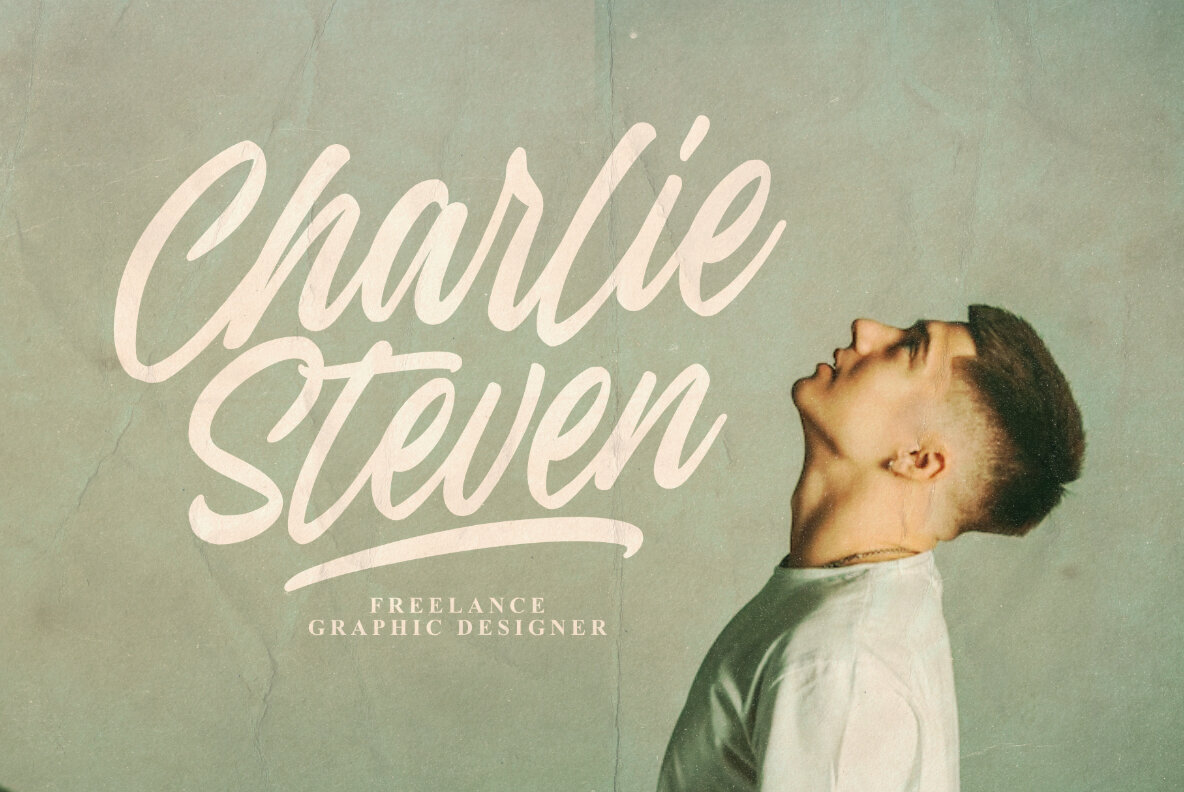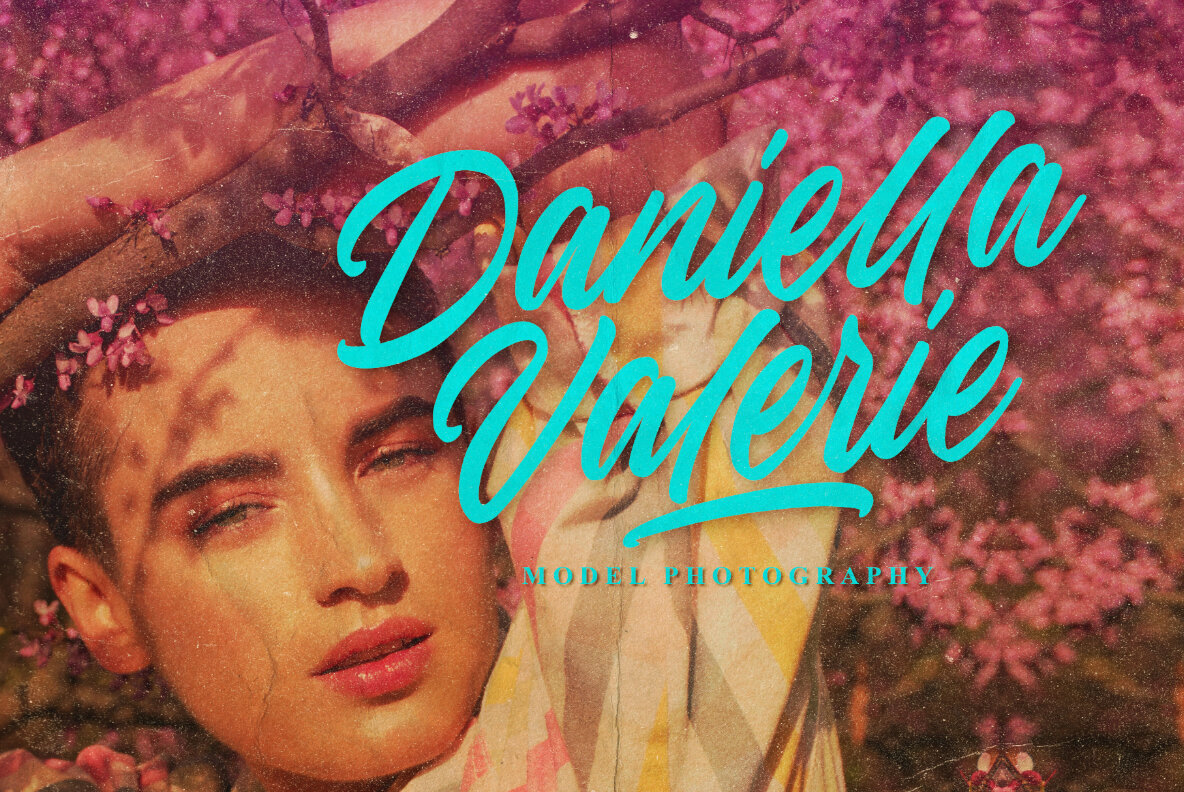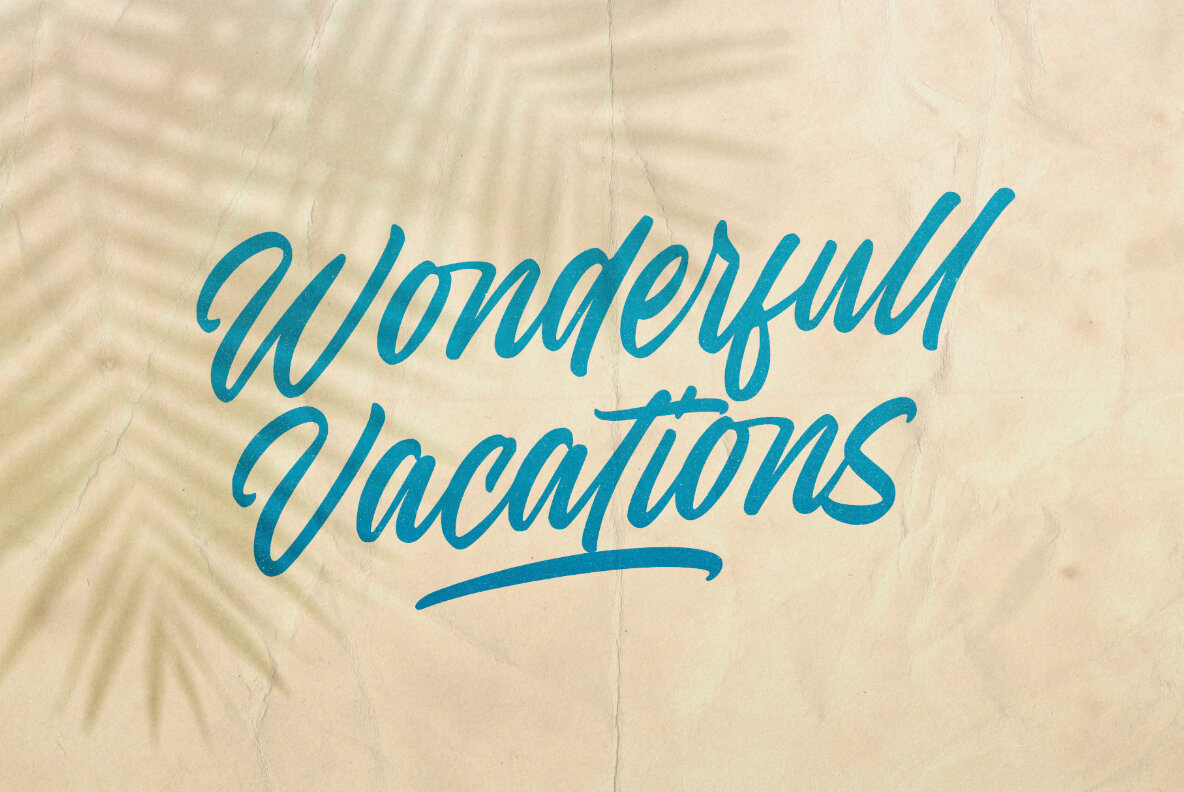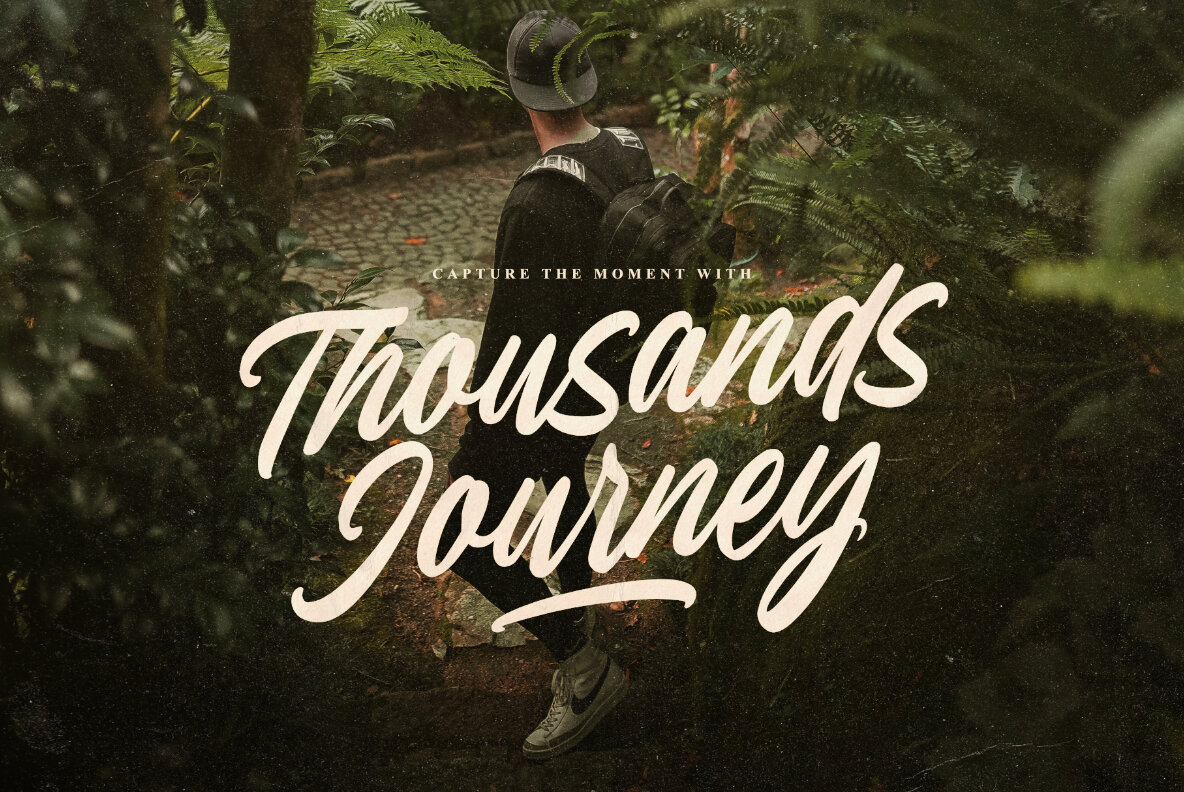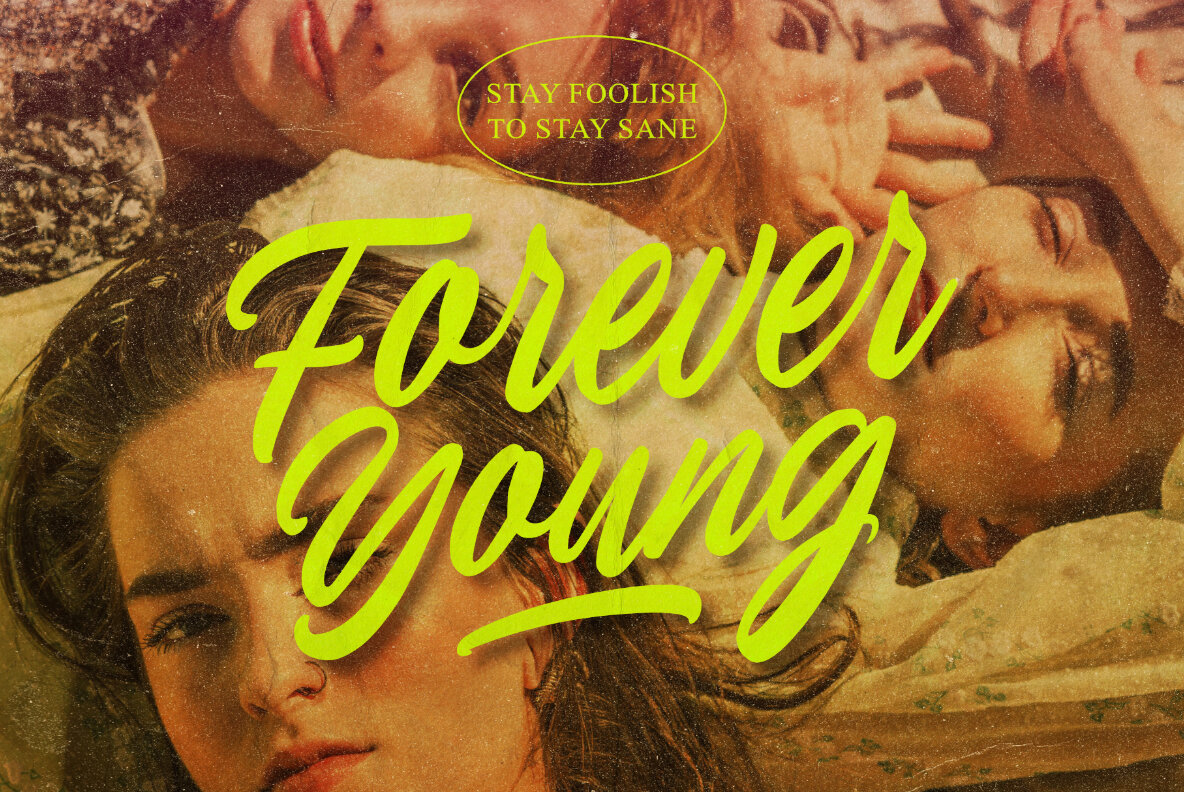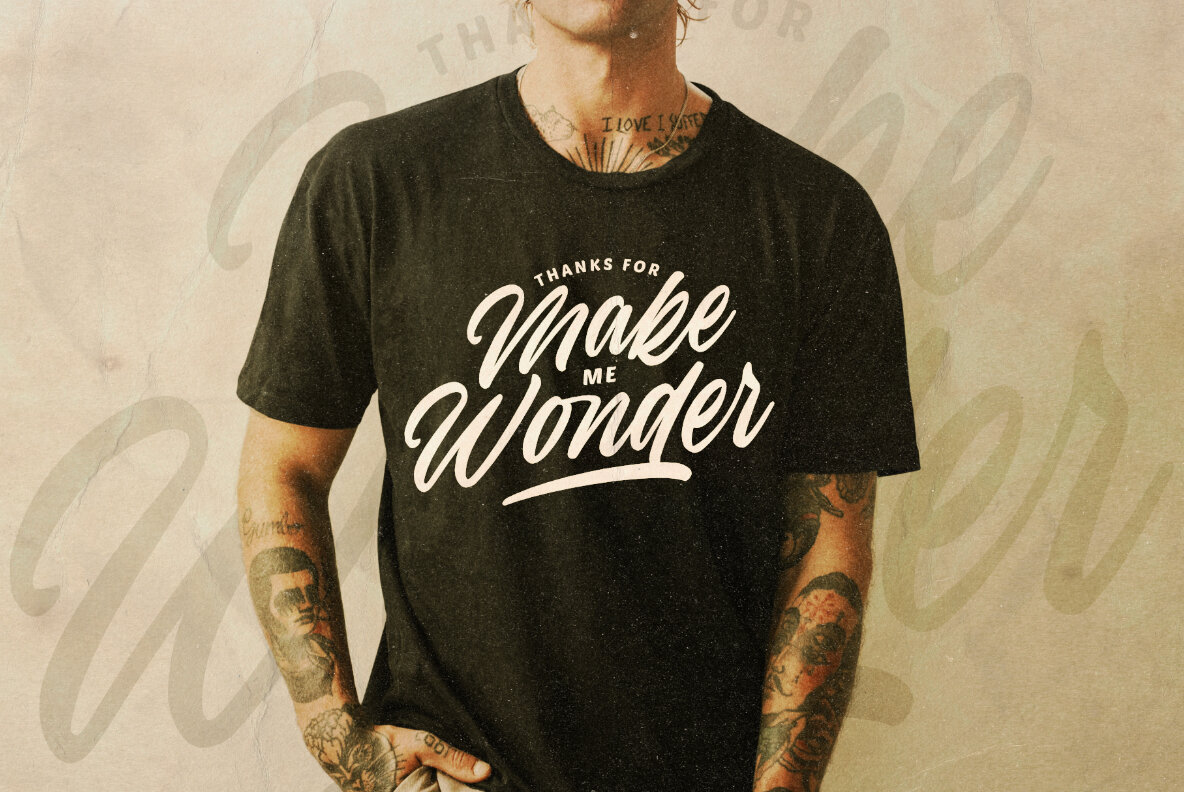
Brilliant Youth Font
Brilliant Youth
Brilliant Youth, an elegant and refined script font, features stylish ligatures that seamlessly blend with various projects. The fashionable script style imparts a classy and stylish touch, closely resembling a natural handwritten script. Brilliant Youth is well-suited for branding projects, logos, wedding designs, social media posts, advertisements, product packaging, product designs, labels, photography, watermarks, invitations, stationery, and more.